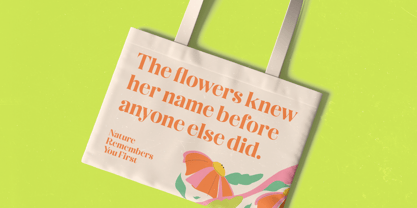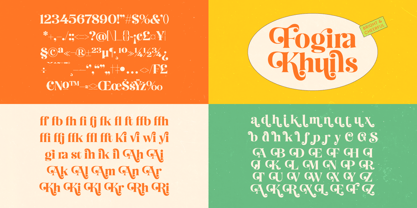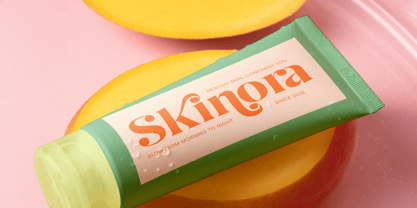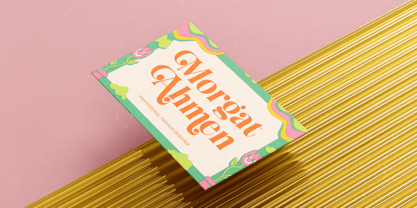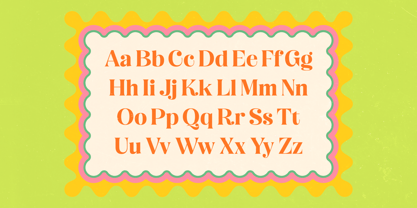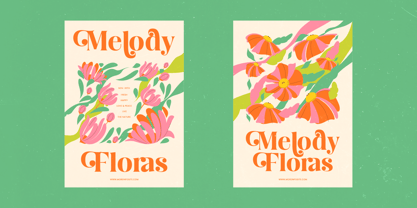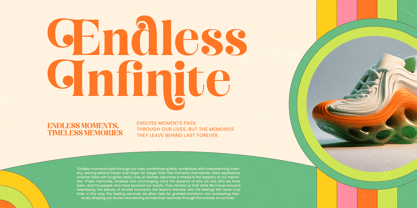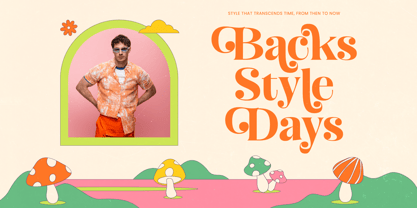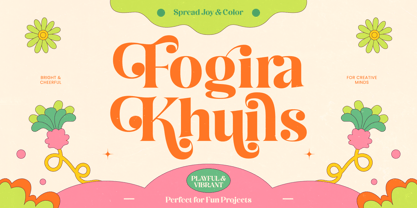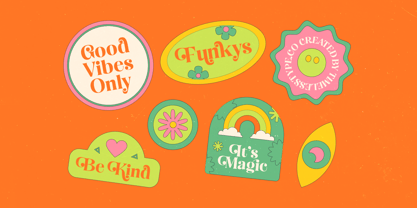
Fogira Khuils
The Fogira Khuils Font Family was designed by Heru Utama Putra and published by Timelesstype Studio. Fogira Khuils contains 2 styles and family package options.
Fogira Khuils – Groovy Serif Font is a stunning high-contrast display face capturing the expressive energy of the 1970s. Its unique curvilinear anatomy and bold structure create a rhythmic visual flow that commands attention. Designed for a distinctive aesthetic, this font brings a dynamic character and premium personality to any creative layout.
Transform brand storytelling through a typeface engineered for maximum impact. This is the ultimate solution for luxury branding, editorial layouts, and vibrant product packaging. Fogira Khuils – Groovy Serif Font is perfect for lifestyle magazines and music posters requiring a touch of vintage flair. With numerous ligatures and stylistic alternates, it allows for seamless creative customization across high-end design projects and modern visual identities.